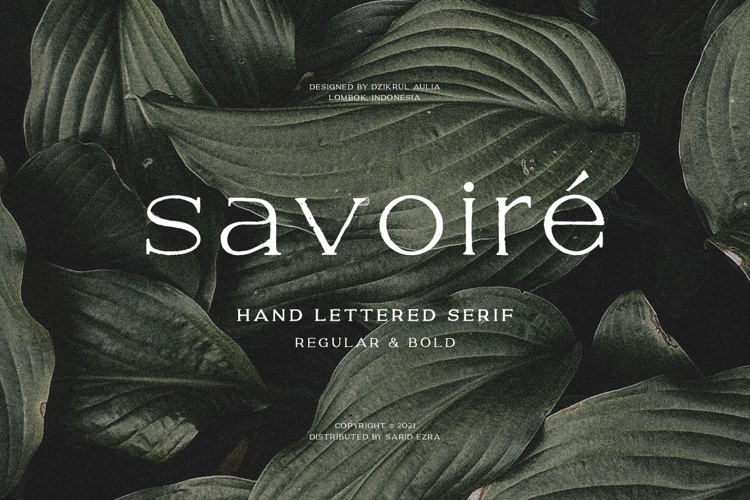
Savoire Font
Savoire is a hand lettered serif that have a handmade vibes. You can use this font for any project especially for design that require handmade and organic feels.